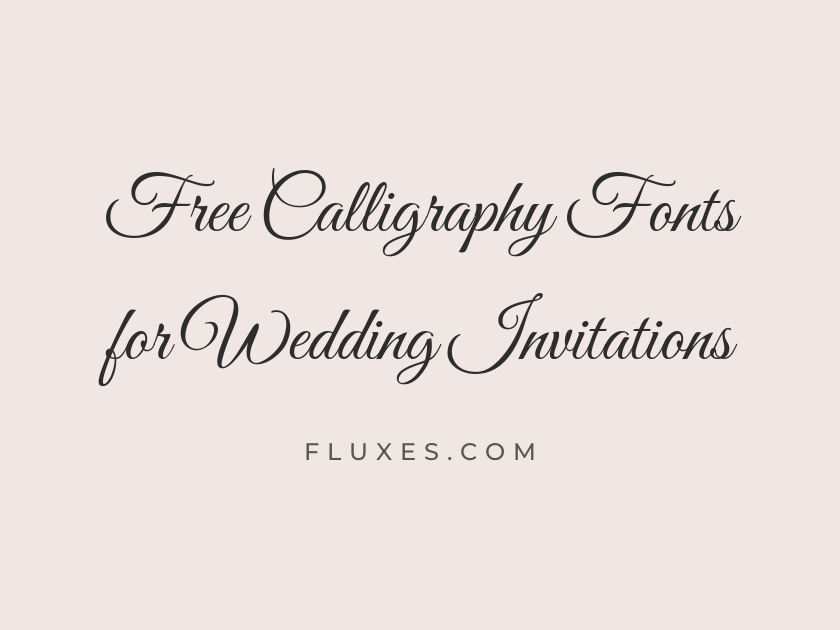
63 Best Free Calligraphy Fonts for Wedding Invitations
Calligraphy sets the emotional tone for a wedding suite before a single word is read. A well-chosen script can whisper romance, shout celebration, or evoke the quiet formality of an engraved invitation, and the right free calligraphy font can do all of that without straining a stationery budget. Google Fonts has become a genuine source for wedding-worthy scripts, from delicate copperplate revivals to loose, ink-blotted brush lettering, all free to download and license for print.
What follows is a wide-ranging survey of script and calligraphy fonts suited to invitations, save-the-dates, menus, and place cards, organized by feeling rather than alphabet so you can match a font to your couple’s particular love story.
1. Great Vibes
Few free scripts have become as synonymous with weddings as Great Vibes. Its long, confident swashes and calligraphic rhythm give it an instant bridal quality, which is exactly why it shows up on so many invitation templates.
Use it sparingly, as a couple’s names or a headline phrase, and pair it with a restrained serif for the details; at very small sizes the connecting strokes can blur, so keep it large and prominent.
2. Alex Brush
Alex Brush reads like actual brush-pen calligraphy, with visible ink pressure and tapering strokes that feel handmade rather than digital. It brings warmth to a monogram or a signature line without tipping into fussiness.
3. Allura
Thin, delicate, and unmistakably feminine, Allura suits soft color palettes and garden-style invitations. It struggles a little at small sizes, so save it for names, titles, and short phrases rather than paragraphs of copy.
4. Parisienne
Parisienne has rounder, softer curves than most formal scripts, giving it a romantic rather than austere feeling. It pairs naturally with blush tones and floral motifs.
5. Pinyon Script
This is the closest free equivalent to the engraved copperplate scripts seen on old-money wedding stationery. The extended, sweeping swashes on capital letters demand generous margins, so give the layout room to breathe rather than cramming it against other text.
6. Sacramento
Sacramento is a slim, single-stroke monoline script with a slightly retro sensibility. It works well as an accent word layered over a photograph, where its light weight lets the image show through.
7. Herr Von Muellerhoff
Ornate and tightly connected, Herr Von Muellerhoff carries an old-world formality reminiscent of hand-inked wedding certificates. It is best reserved for short lines, such as a couple’s names, where every flourish stays legible.
8. Italianno
Italianno flows with the elegant slant of traditional copperplate handwriting, giving even a simple word like “invitation” a sense of ceremony. It is a dependable choice for couples who want classic romance without excessive ornamentation.
9. Mrs Saint Delafield
Looser and more casual than its formal cousins, Mrs Saint Delafield looks like it was penned quickly by a confident hand rather than ruled out with a nib. That informality makes it a favorite for rustic barns, vineyard venues, and relaxed outdoor ceremonies.
10. Monsieur La Doulaise
Monsieur La Doulaise is pure drama, with swashes long enough to underline an entire word on their own. Use it as a single-word statement piece rather than a paragraph font.
11. Tangerine
Tangerine has an old engraving-press quality that suits very traditional, formal wedding wording. Set in all capitals it becomes wonderfully ornate, and set in lowercase it turns quiet and refined.
12. Yellowtail
Bold, rounded, and easy to read even at modest sizes, Yellowtail brings a friendly brush-script energy that suits casual and destination weddings alike.
13. Dancing Script
Dancing Script is the workhorse of free wedding calligraphy: bouncy, legible, and available in several weights so it can move from a light accent to a bold headline without changing families. It has become a go-to for save-the-dates precisely because it stays readable at small sizes, unlike many of its more ornamental peers.
It pairs comfortably with almost any serif body text, which makes it a safe first choice if you are building a suite from scratch.
14. Satisfy
Satisfy has a casual, felt-tip character that suits boho and rustic wedding themes better than a stiff, formal ceremony. It is sturdy enough to hold up in menus and signage, not just headlines.
When in doubt, download a few candidates and print a proof. Screens flatter thin strokes in ways that paper and ink sometimes do not.
With this many free, high-quality options available through Google Fonts, there is no need to compromise on romance or legibility. The right script, paired thoughtfully with a calm supporting typeface, can carry the tone of an entire wedding before a guest reads a single word of the details.